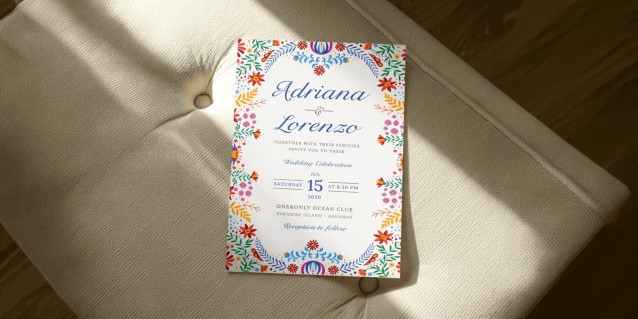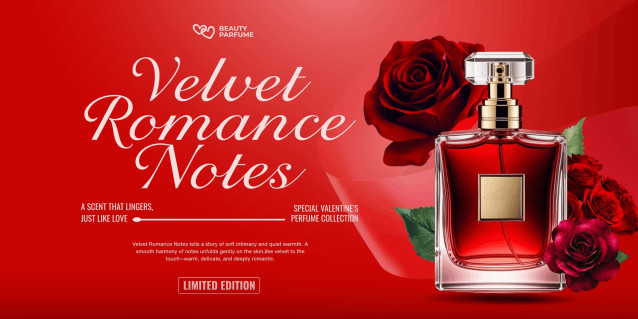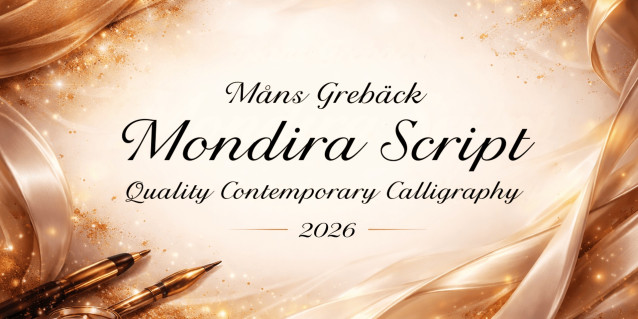
Mondira Script Font
Mondira Script Font is a contemporary calligraphy typeface with a refined, flowing rhythm and a calm sense of balance.The letters move with a smooth, deliberate pace, shaped by gentle contrasts and long, confident strokes. Its curves feel soft rather than ornate, and the overall structure stays clear even when the writing becomes expressive. Mondira Script has an elegant presence without leaning on excess decoration, making it feel natural and composed.
The style suggests handwritten notes prepared with care, formal yet personal, where each word is allowed to breathe. It works comfortably in longer phrases, keeping a consistent tone while subtle variations add life and warmth.
The font is built with advanced OpenType functionality and guaranteed top-notch quality, containing stylistic and contextual alternates, ligatures and more automatic and manual features; all to give you full control and customizability.
It has extensive lingual support, covering all Latin-based languages, from North Europa to South Africa, from America to South-East Asia. It contains all characters and symbols you’ll ever need, including all punctuation and numbers.
Designed with attention to flow and detail, Mondira Script reflects a modern approach to calligraphy where readability and expression are given equal importance. It is meant to feel written by hand, not performed, with a steady confidence that comes from restraint rather than flourish.